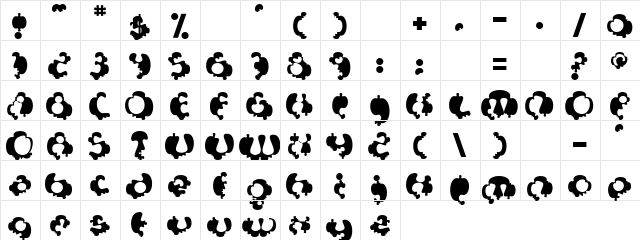
Anklet Regular Font Preview
Anklet Regular
Anklet Regular Font Details
Design Context for Anklet Typeface
Anklet is a composed and adaptable typeface that performs quietly and consistently across a wide range of design contexts.